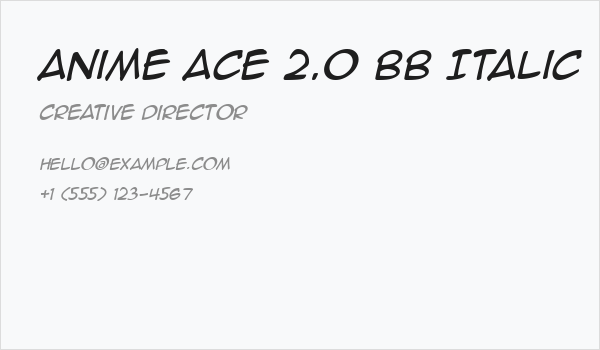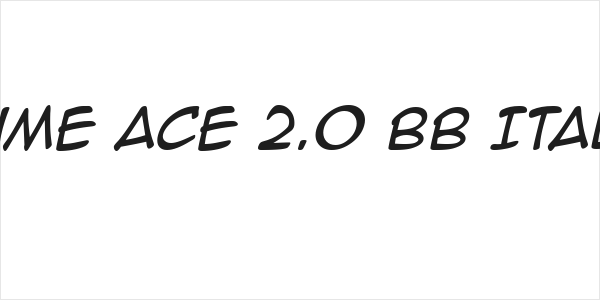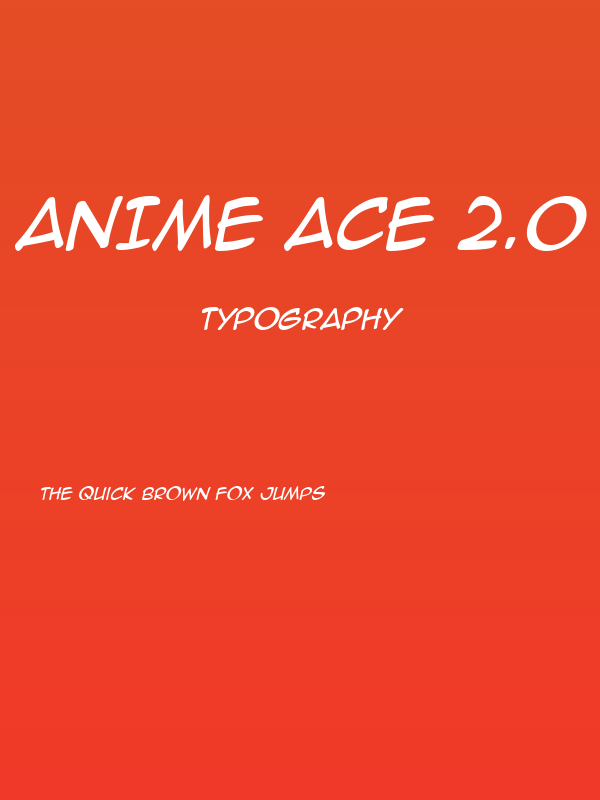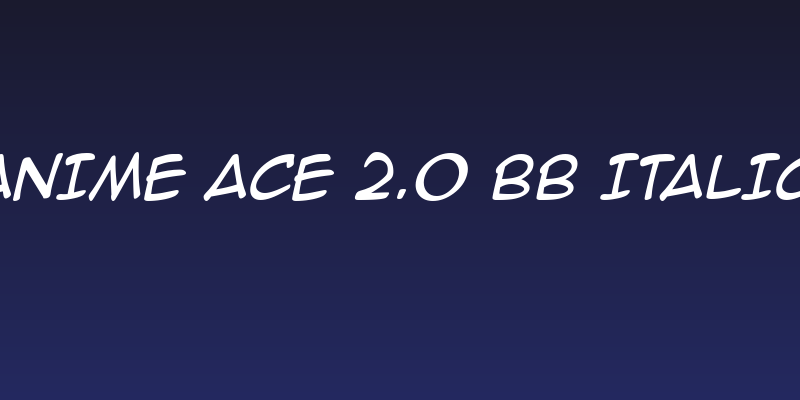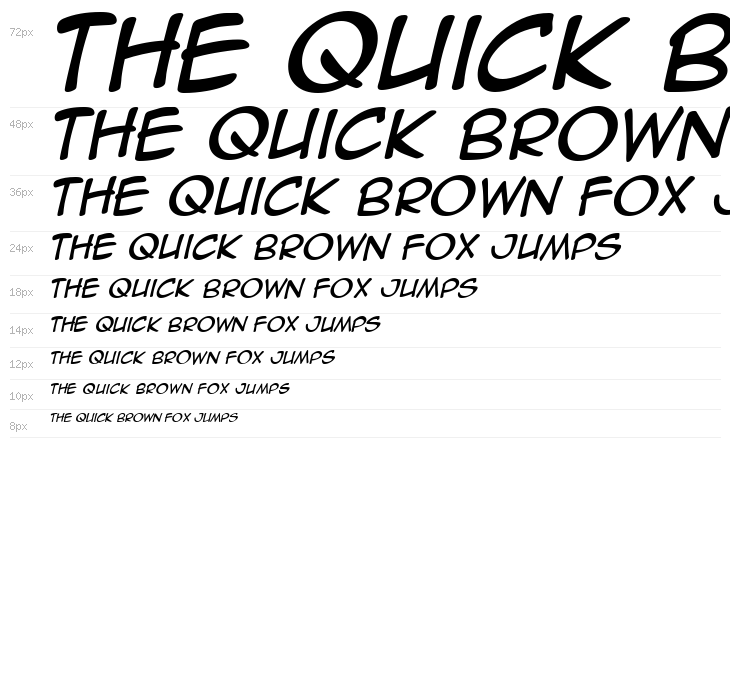
Anime Ace 2.0 BB Italic Font
Anime Ace 2.0 BB Italic Description
This font features a playful and dynamic style with a handwritten appearance. The characters are slightly slanted, giving it an italicized look, which adds to its energetic and informal feel. The strokes are smooth and rounded, contributing to a friendly and approachable aesthetic. The uppercase and lowercase letters maintain a consistent style, with a moderate contrast in stroke thickness that enhances readability. The numerals and special characters are designed to match the overall style, ensuring a cohesive look across all text elements.
| Proposed Projects | Ideal for comic books, children's books, casual branding, and playful graphic designs. |